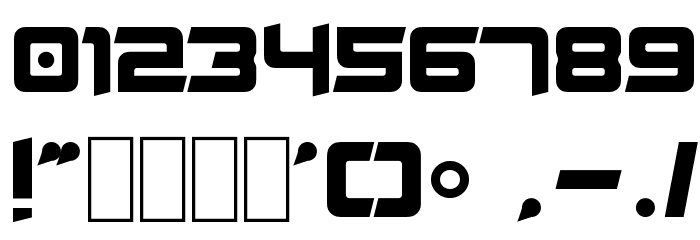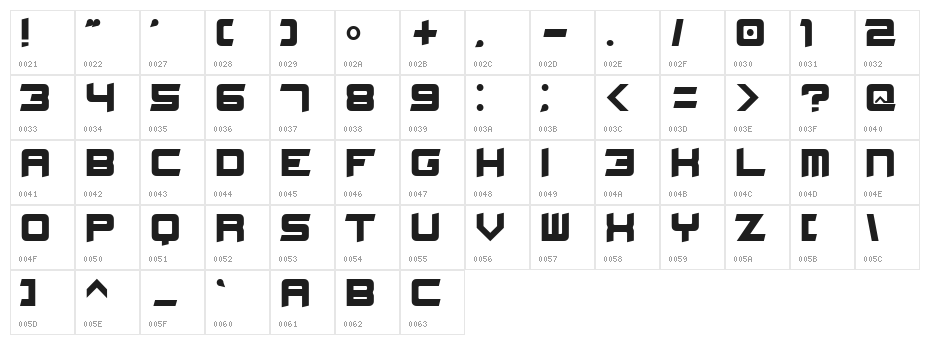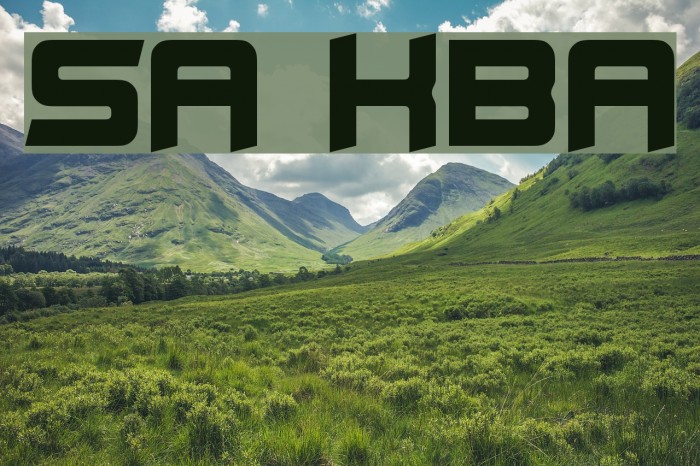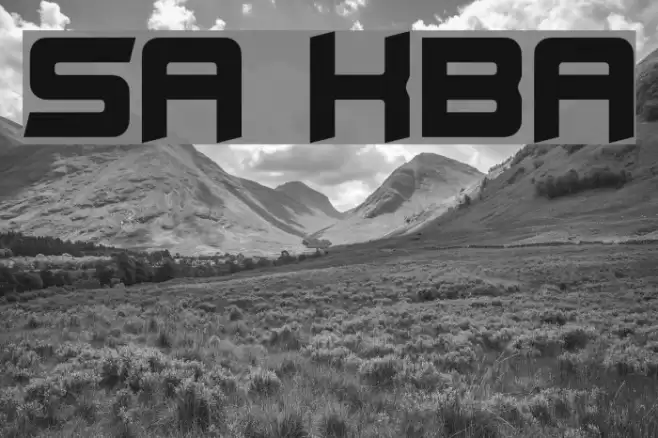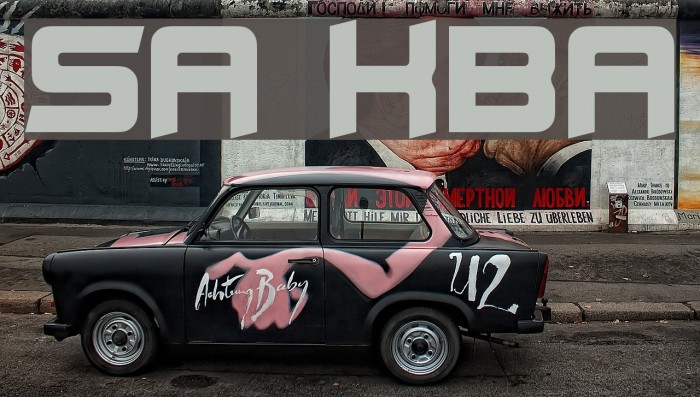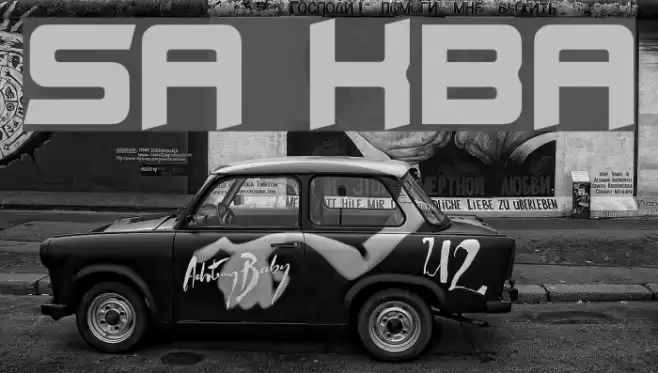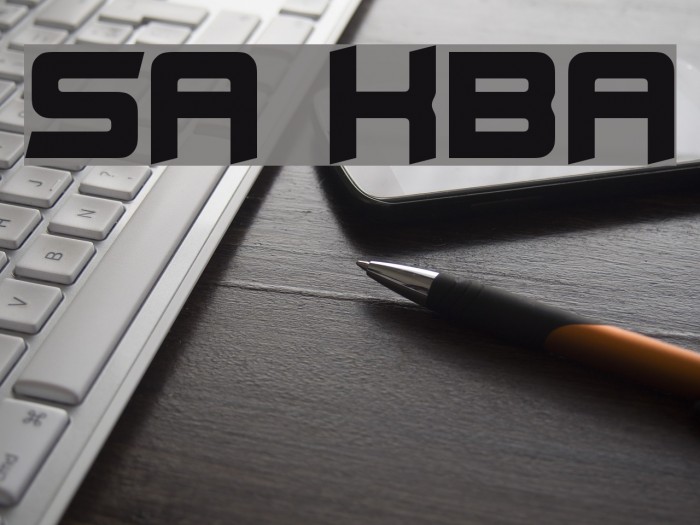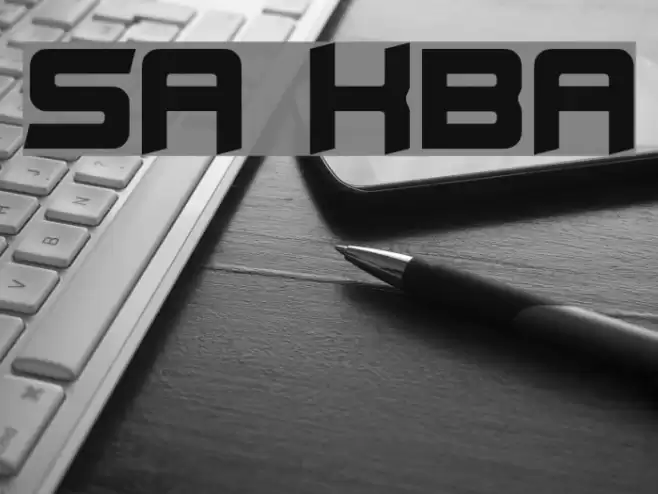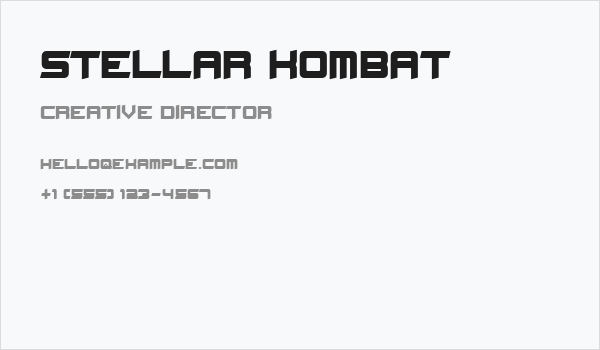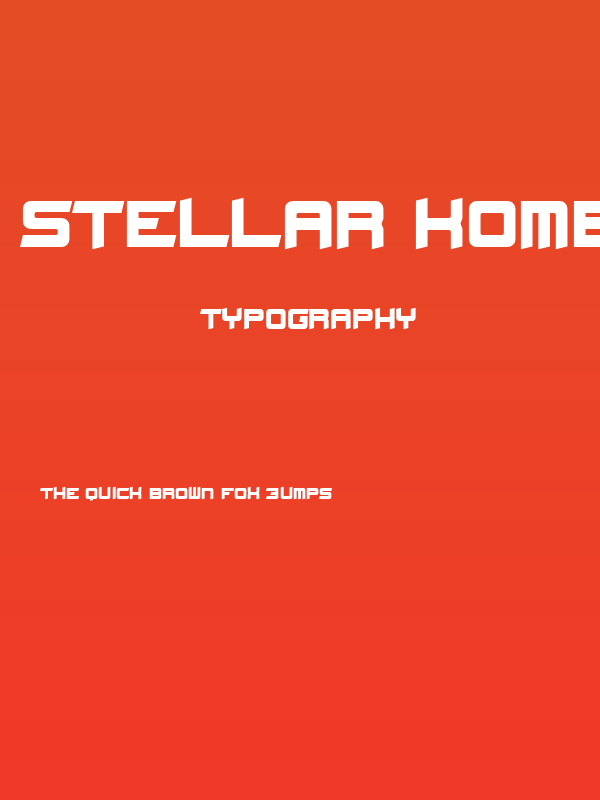
Stellar Kombat Font
Stellar Kombat Description
This font features a bold, futuristic design with angular and geometric shapes that give it a dynamic and energetic appearance. The characters are distinct with sharp edges and a slightly condensed form, making it ideal for attention-grabbing headlines or titles. The uppercase and lowercase letters maintain a consistent style, with the numerals and special characters complementing the overall aesthetic. The font's design is reminiscent of sci-fi themes, making it suitable for projects that require a modern and edgy look.
| Proposed Projects | Ideal for video game titles, movie posters, tech branding, and futuristic-themed designs. |